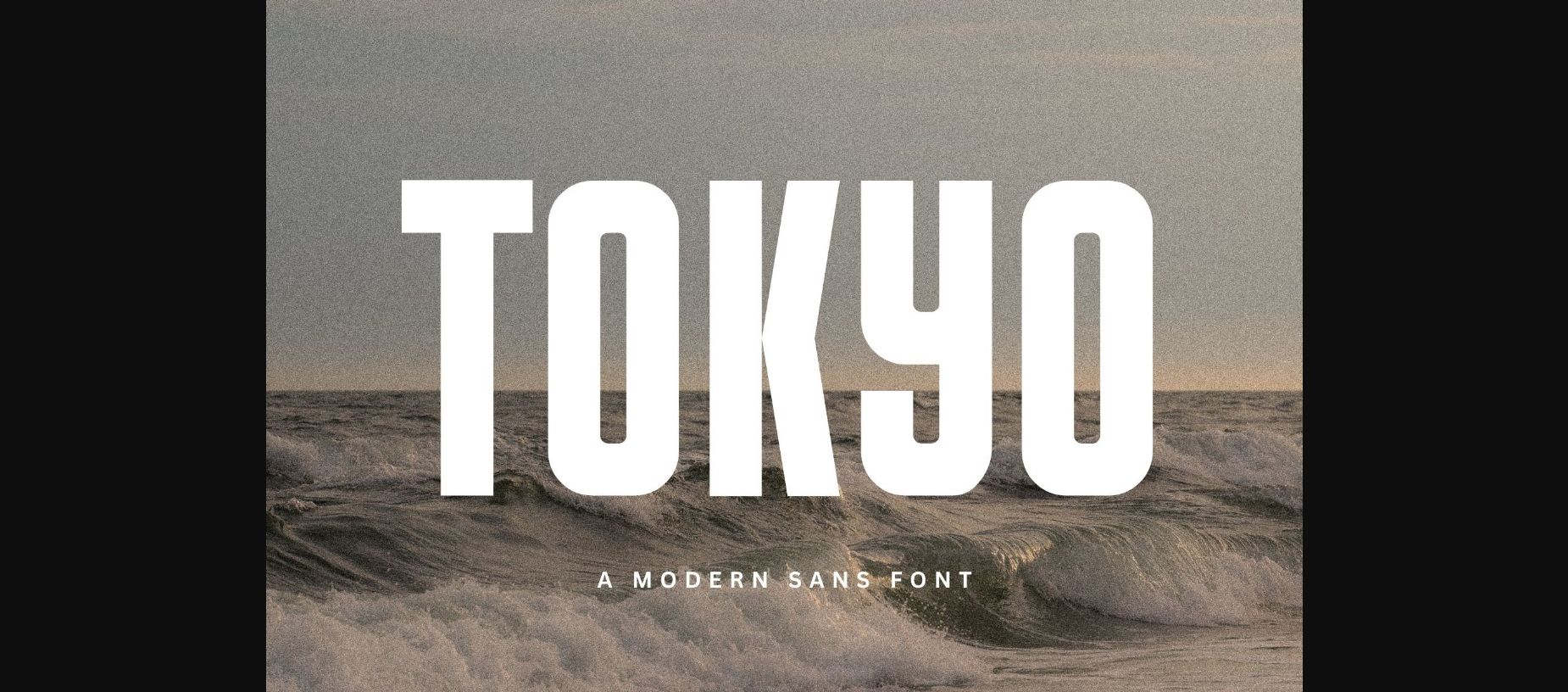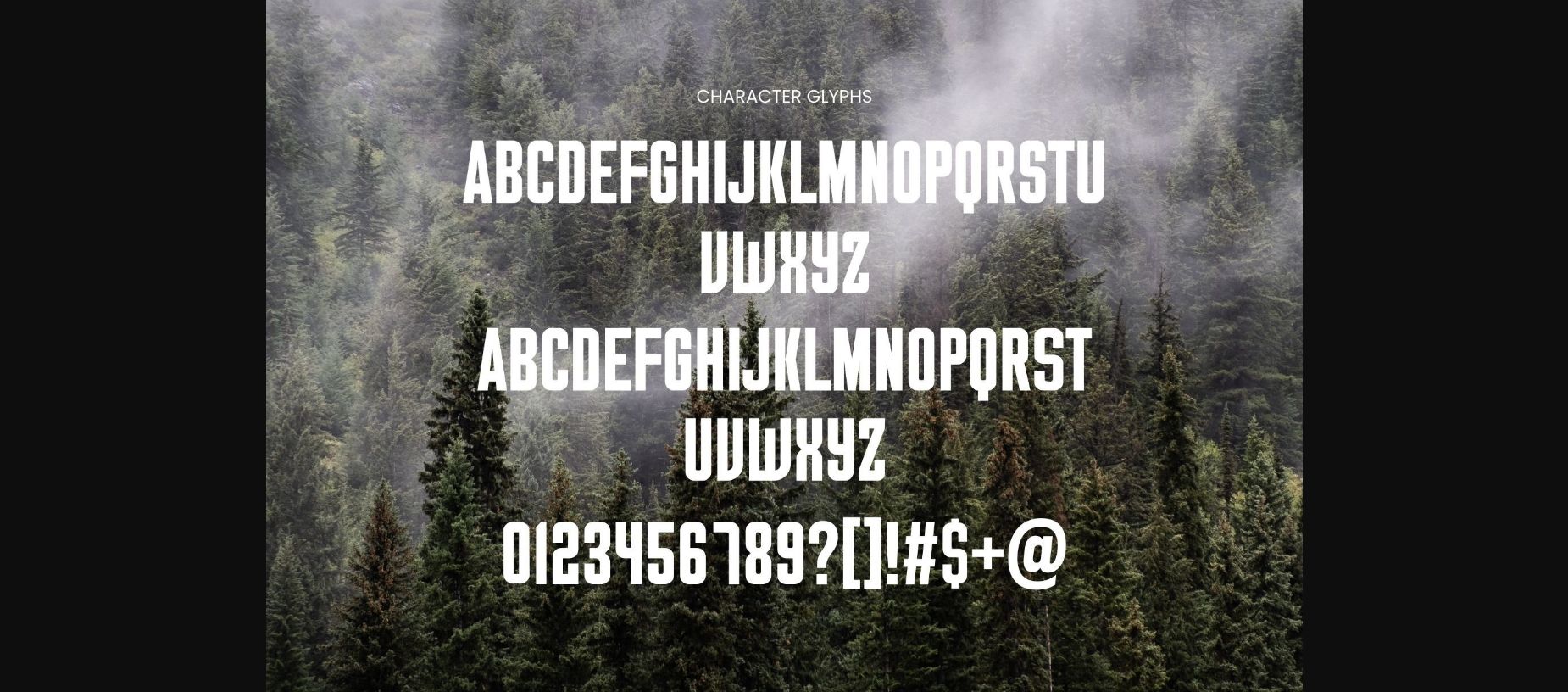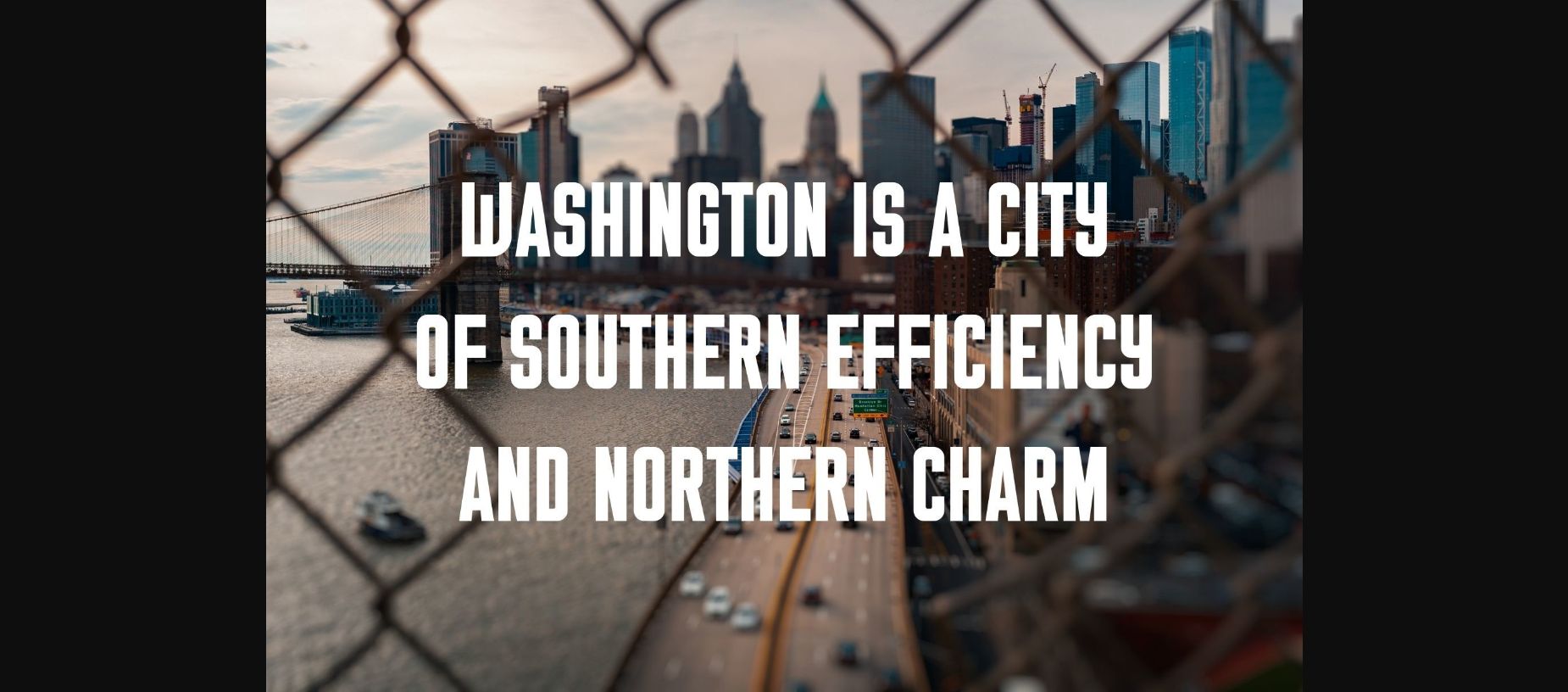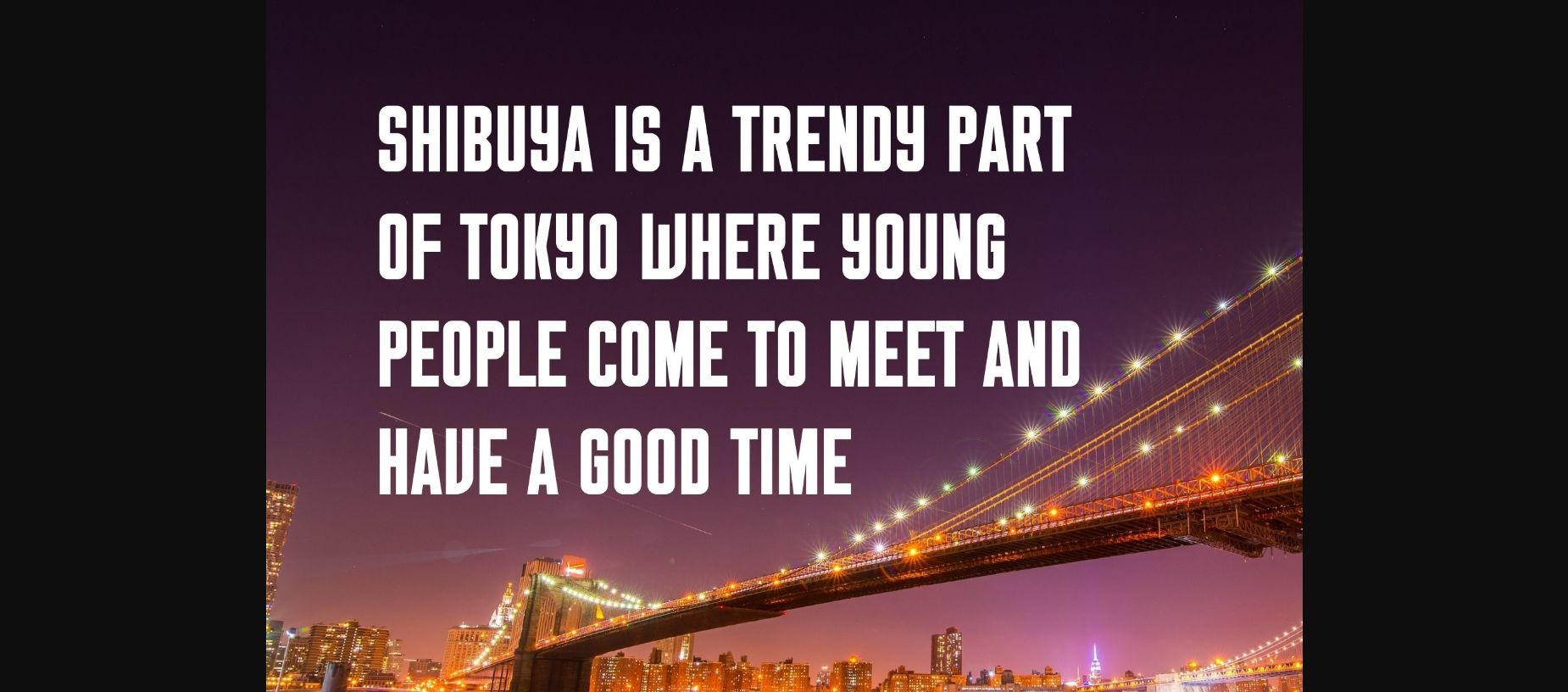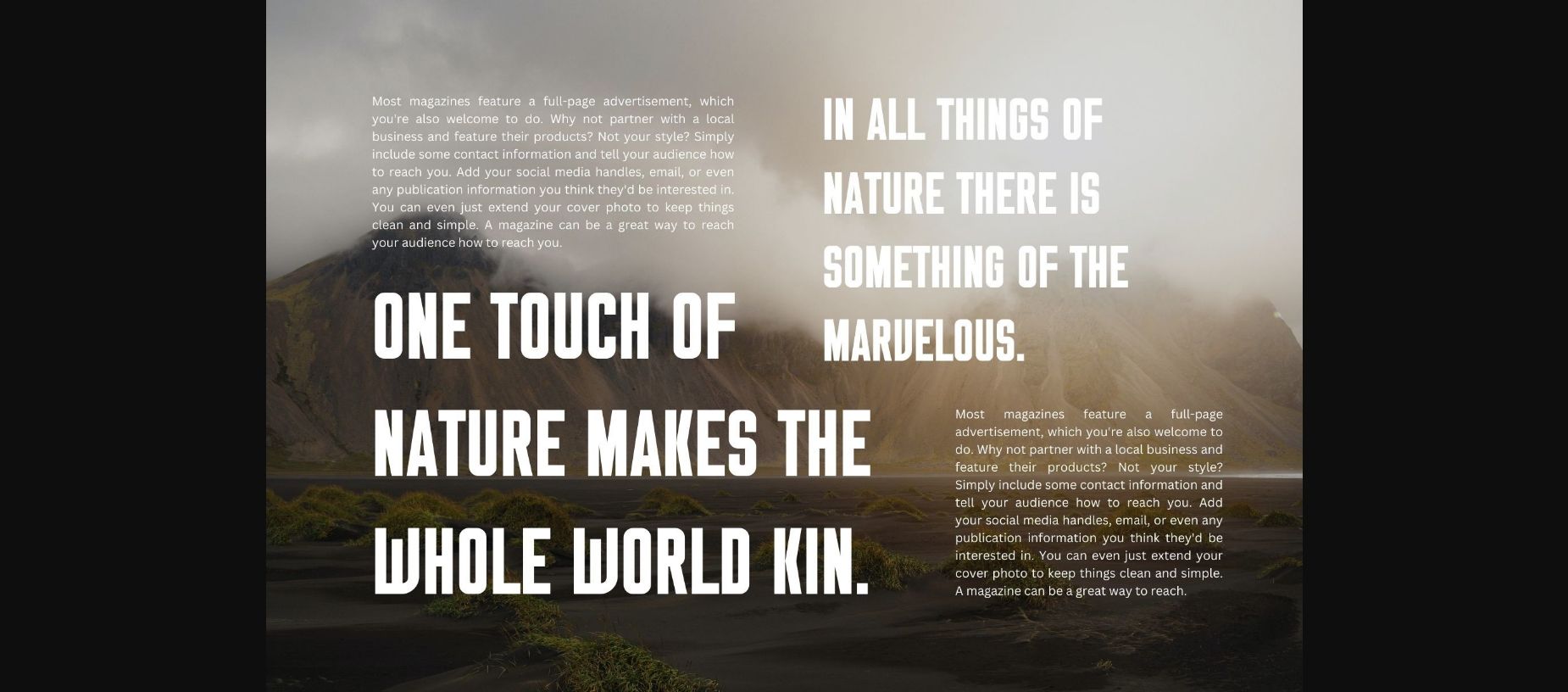
About Tokyo Font
“Tokyo” is a clean and contemporary sans-serif font that captures the essence of modern design. With sleek lines and balanced proportions, it offers a polished and versatile look suitable for a wide range of applications. Its legibility and subtle elegance make it a perfect choice for both digital and print projects, bringing a touch of urban sophistication to your typography.